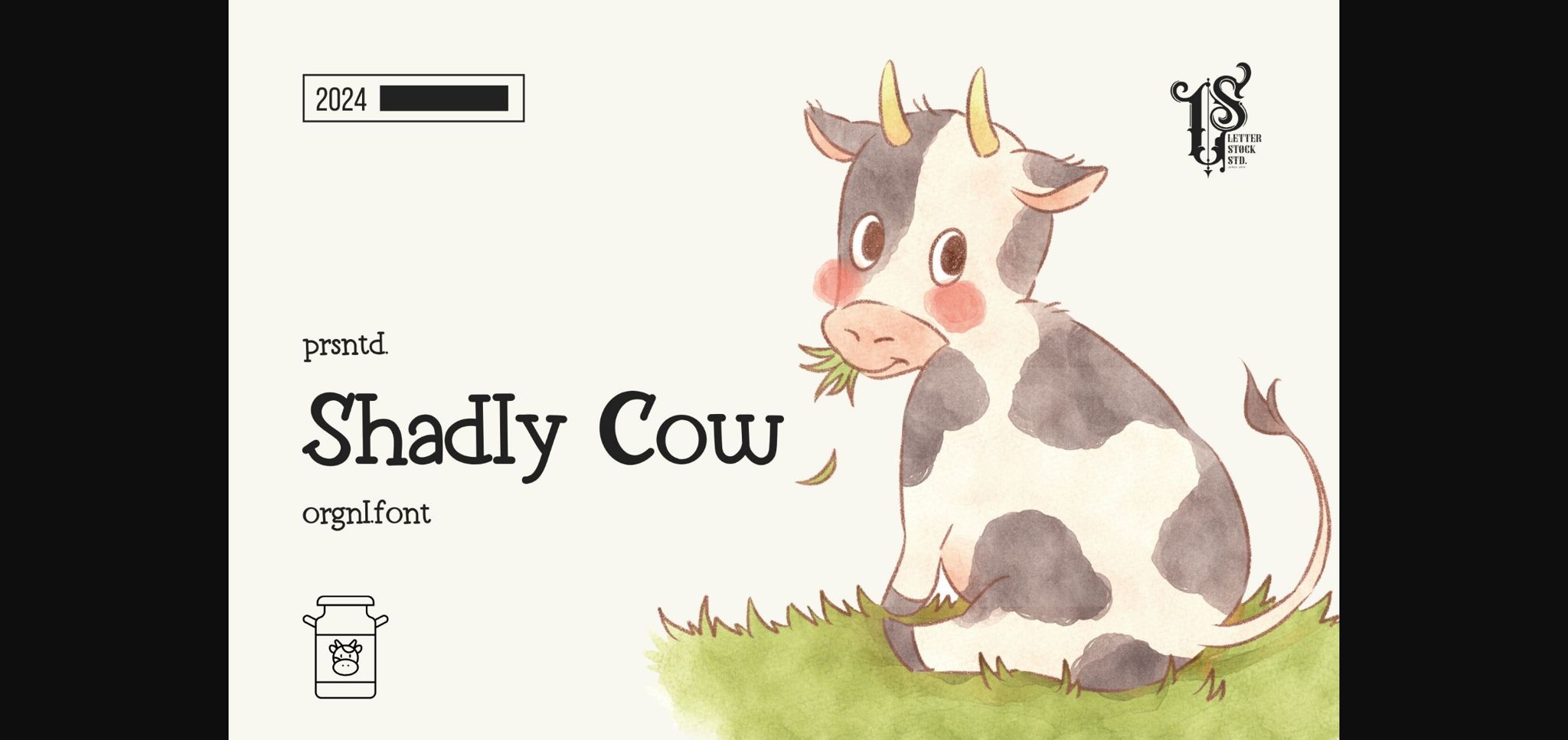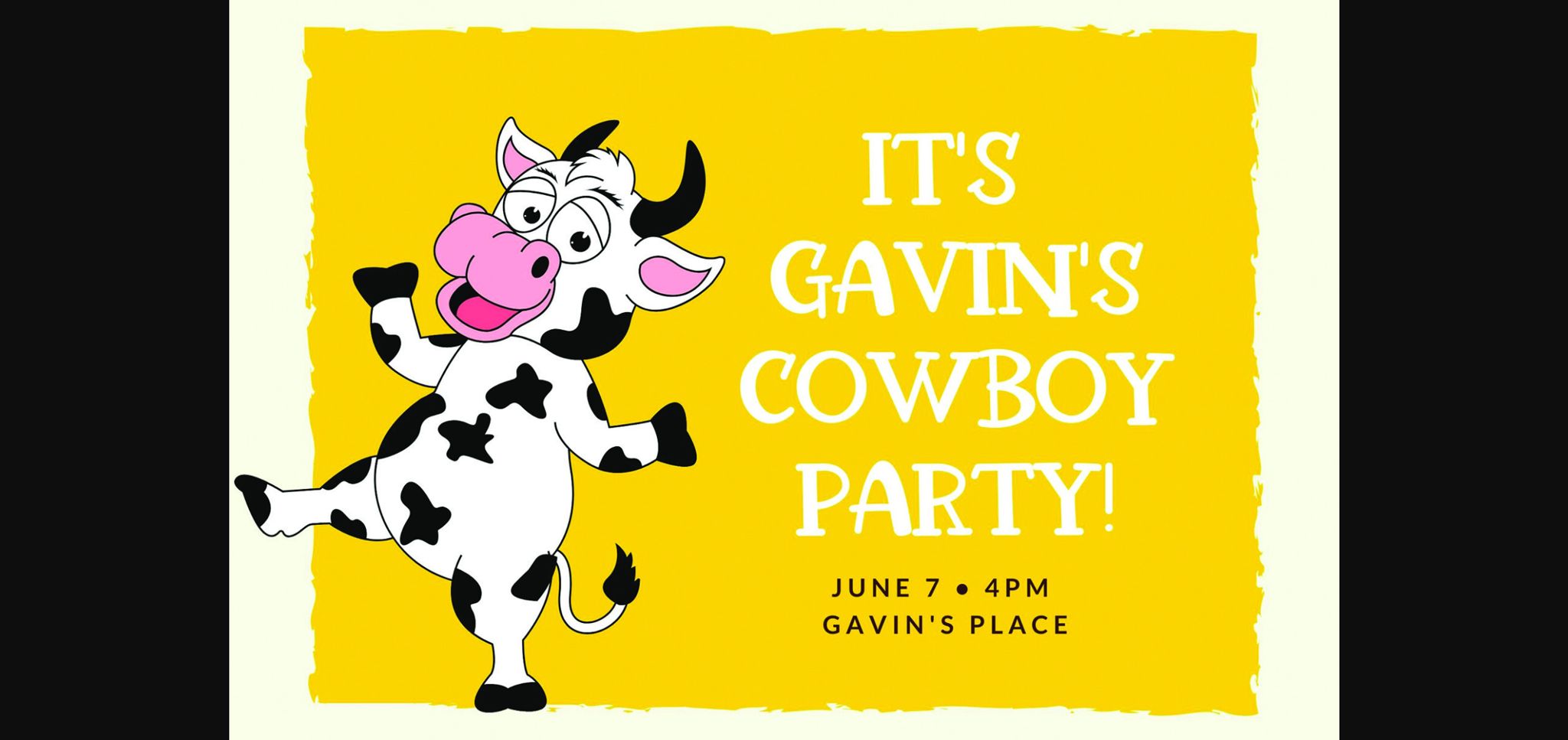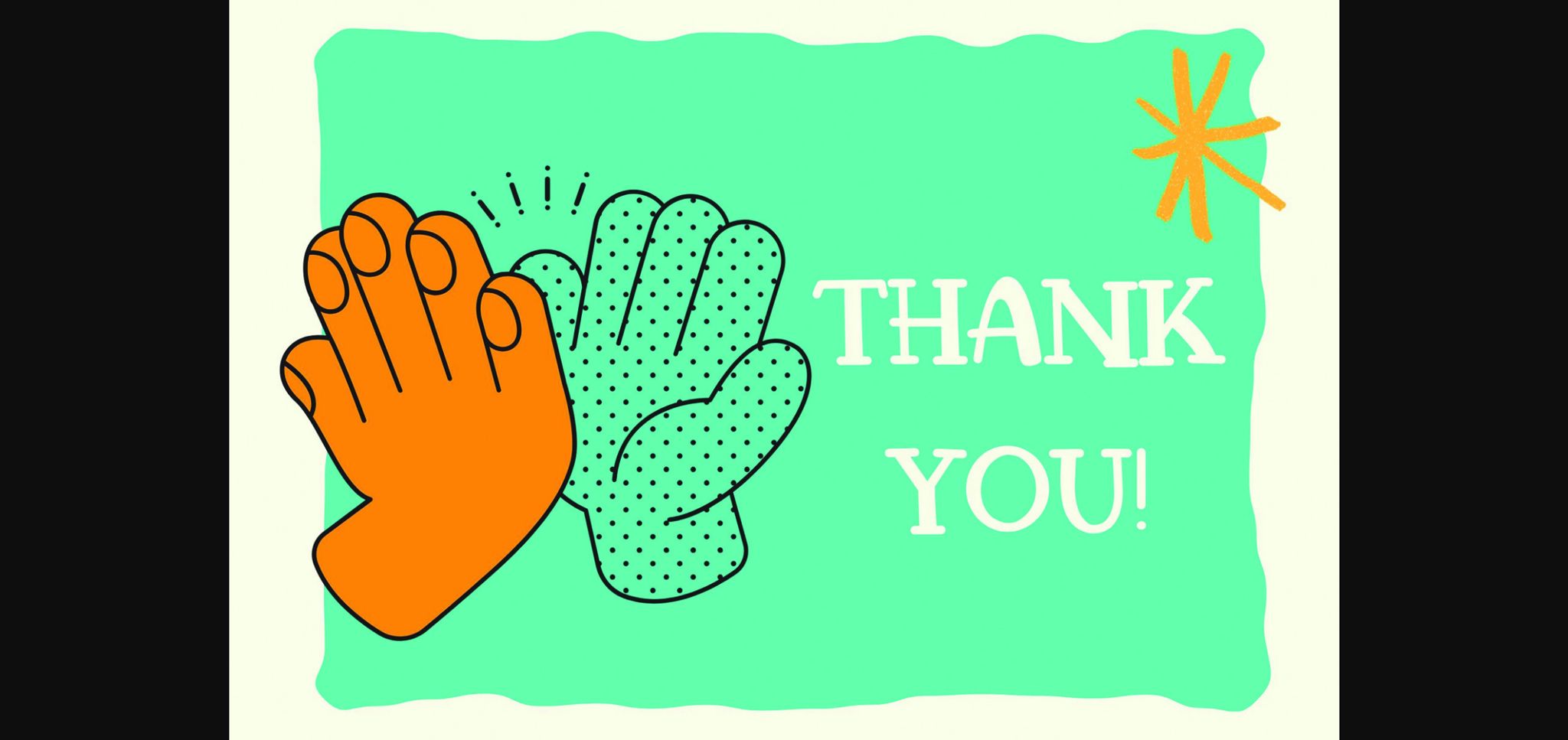
Shadly Cow Font
About Shadly Cow Font
Introducing “Shadly Cow” – an original hand-drawn font with retro slab decorative vibes. This font brings a touch of nostalgia and charm to your designs, perfect for posters, logos, signage, and more. With its unique style and versatility, “Shadly Cow” is sure to stand out and make a statement.